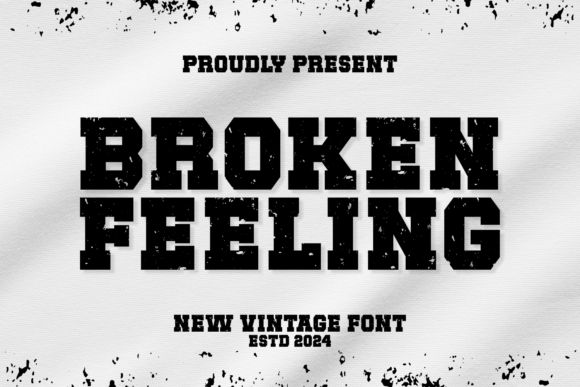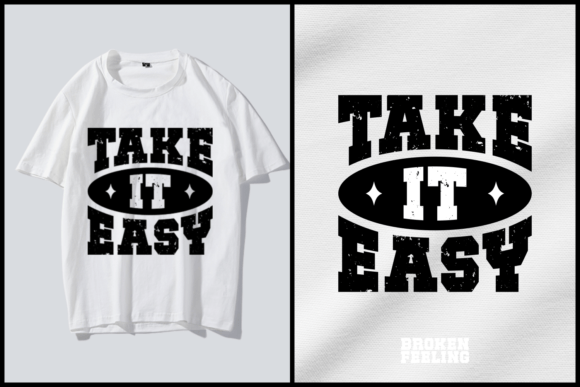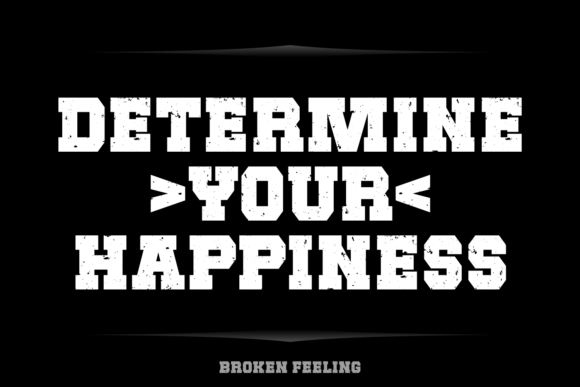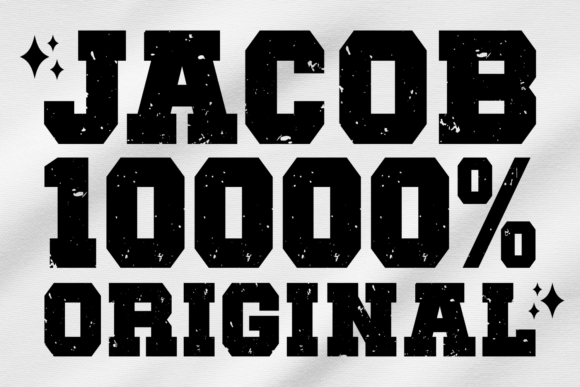
Broken Feeling Font: Edgy Vintage Typography for Cricut
About the Broken Feeling Font
Make a bold statement with Broken Feeling Font, a powerful and memorable font. Unleashing the charm of the past with a twist of edgy chic, a vintage yet Grunge font reignites the love for classic styles. This careful collision of nostalgia and contemporary culture traces a unique visual imprint, taking your designs to the next level. This version of Broken font is the embodiment of raw sophistication, carefully curated to add an intriguing ambiguity to your design projects.
Broken Feeling Font excels in headline applications, short impactful statements, and branding projects that demand a vintage-inspired yet edgy aesthetic. It works particularly well for posters, logos, and packaging designs where its unique texture and character can be showcased effectively. Avoid using it for body text or lengthy paragraphs; its distressed nature can hinder readability in extended use.
The font’s core personality is bold and rebellious, with a touch of sophisticated grit. It’s ideal for brands conveying a sense of vintage coolness, independent spirit, or a slightly raw authenticity.
To balance its strong character, pair Broken Feeling Font with clean sans-serif fonts like Futura or Helvetica for a striking contrast, or a more delicate script font such as Allura for a softer, yet still stylish combination. A geometric sans-serif like Montserrat could also create a modern, balanced feel.
Broken Feeling Font Usage Examples
Broken Feeling Font Example